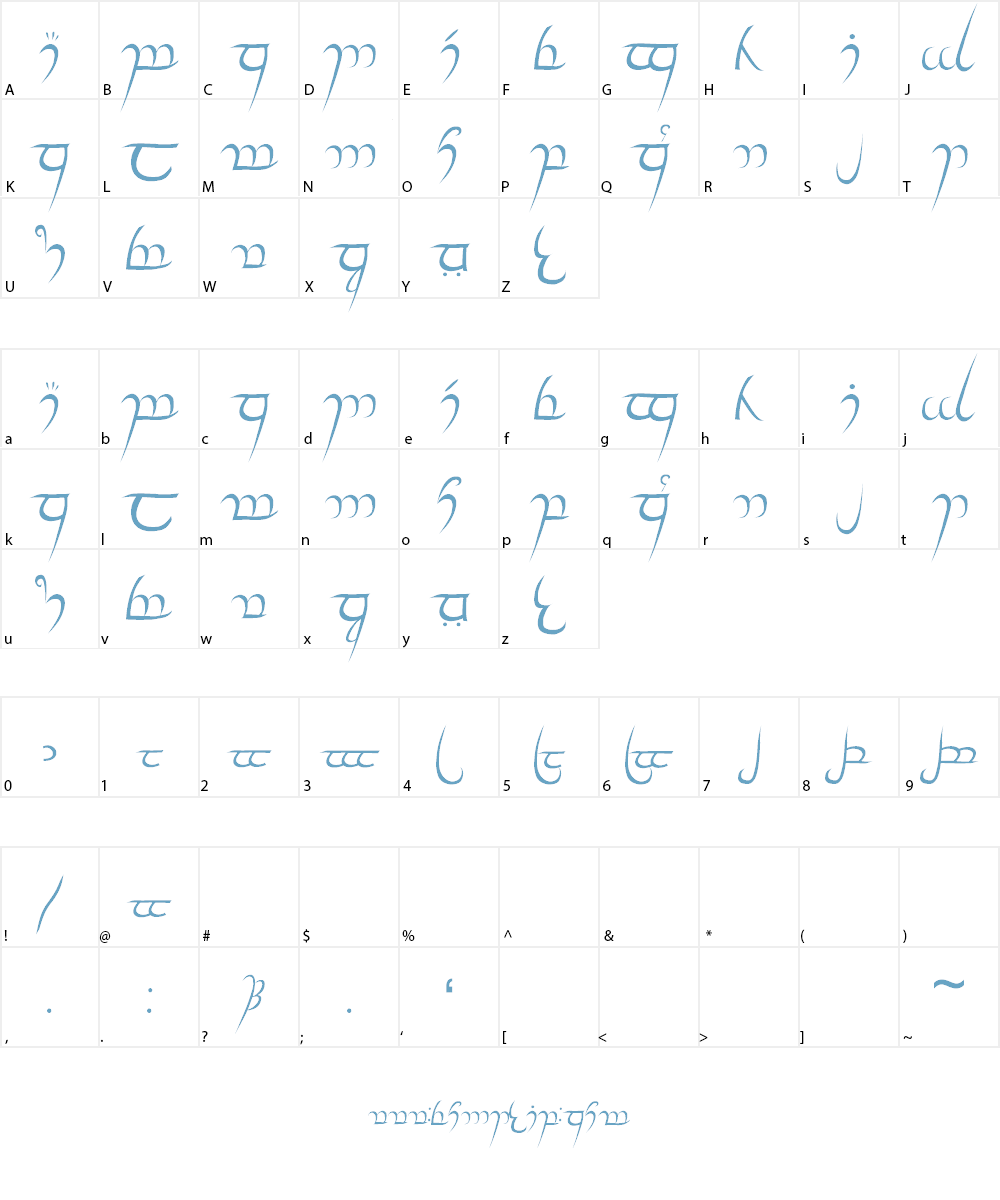
Elven engraving was created by J. R. R. Tolkien. It was used in his works. Although it has some different writing rules (which cannot be correctly designed in programs I use), main part is still kept original. If you have any questions, requests, ideas or you want to tell me something nice, you can send me a message on . Enjoy mellyn! Suilad!